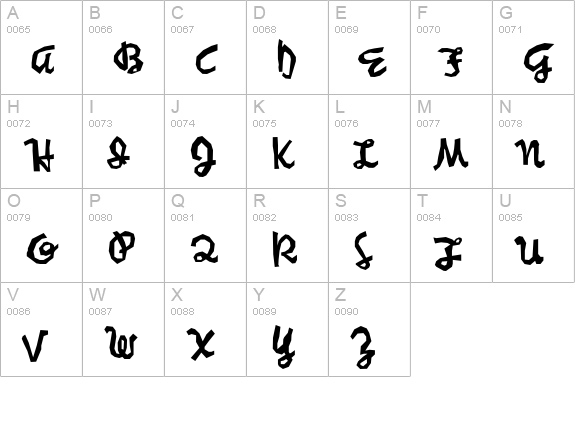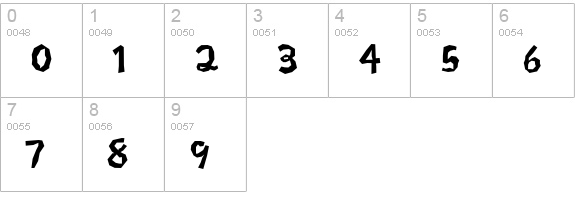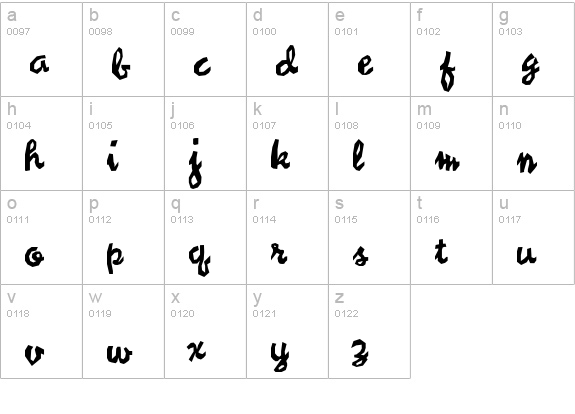
Syncopated Script is a beautifully crafted font that embodies elegance and sophistication. Its flowing and rhythmic strokes give any text a touch of artistic flair, making it perfect for various design projects such as invitations, greeting cards, and branding materials. The unique syncopated rhythm of this font adds a dynamic and modern twist to any design, setting it apart from traditional script fonts. What makes Syncopated Script even more appealing is that it is available for free download at FontsMarket.com. This means that you can easily access and use this stunning font in your creative projects without any cost. Whether you are a seasoned designer or someone just starting out, Syncopated Script offers a versatile and stylish option to elevate your designs. Download Syncopated Script today and add a touch of sophistication to your next project.